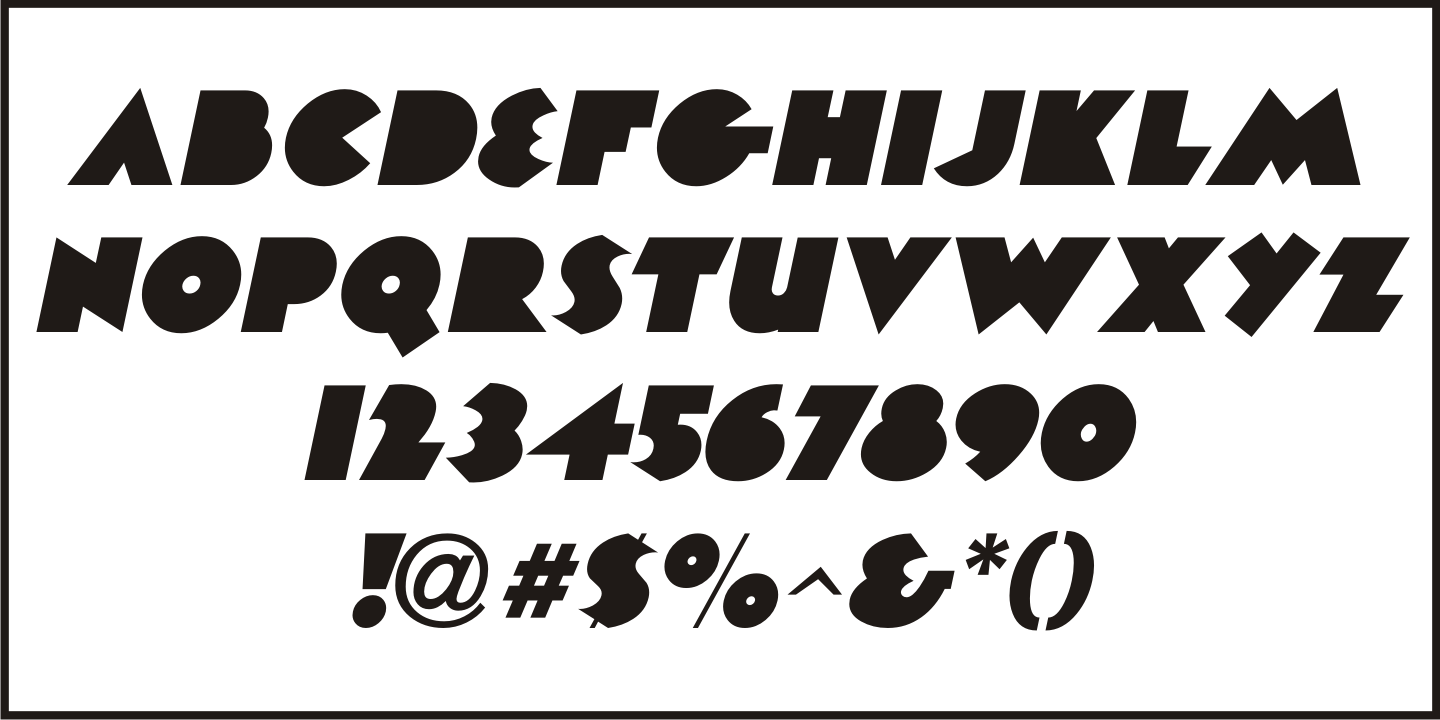
Postmodern Moderne Font is perfect for avant-garde architectural firms, contemporary art installations, cutting-edge fashion magazines, progressive design studios, experimental cultural projects, sophisticated gallery exhibitions, innovative tech companies, and forward-thinking creative agencies. This revolutionary typeface excels in contemporary environments, experimental design applications, and any project requiring architectural sophistication that communicates postmodern innovation and progressive thinking through deconstructed visual elegance.
What makes Postmodern Moderne Font exciting is its extraordinary ability to embody postmodern philosophy and architectural innovation through deconstructively crafted letterforms that challenge traditional typography while maintaining sophisticated readability. The font features experimentally designed characters with postmodern angles and architectural proportions that evoke feelings of cultural progression and intellectual sophistication, making it ideal for brands seeking to establish avant-garde positioning and communicate through progressive visual language. Its experimental presence ensures immediate recognition of contemporary thinking and architectural innovation.
Postmodern Moderne Font family includes multiple weights and styles: Regular, Bold, Light, Medium, Italic variations, and deconstructed alternates with postmodern embellishments and architectural decorative elements. Each family member maintains the distinctive experimental character while offering comprehensive design options for progressive campaigns, from intellectually sophisticated text to revolutionary headlines that establish contemporary authority and postmodern credibility through architecturally innovative typography.
Whether you're designing avant-garde brand identities or creating progressive cultural campaigns, Postmodern Moderne Font Free Download provides the perfect typography solution for experimental branding needs. This font transforms ordinary text into revolutionary architectural statements that communicate postmodern sophistication and progressive innovation. Contemporary architecture firms and avant-garde cultural institutions choose this typeface for its ability to convey experimental elegance through deconstructively crafted letterforms that deconstruct traditional design boundaries and celebrate the beautiful complexity of postmodern architectural thinking.